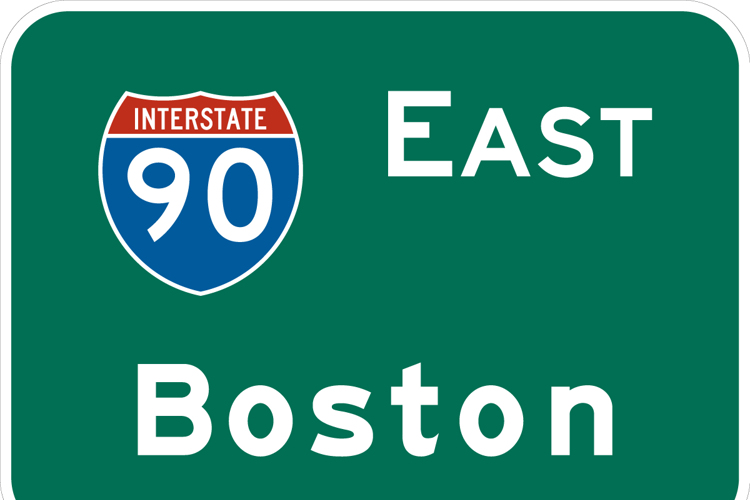
Highway Gothic E Modified FHWA Font
These are the current Highway Gothic letterforms (updated in February 2025) used by the Federal Highway Administration (FHWA) to design the signs shown in the Manual of Uniform Traffic Control Devices (MUTCD) and the Standard Highway Signs (SHS) manuals. The spaced individual fonts are provided because the method of spacing for sign design by the FHWA does not conform to the manner of spacing used in graphic design programs. The spacing is done on a strict percentage of character width basis. These fonts contain no kerning pairs, and that is intentional. The fonts were updated in February 2025 with updated letterforms, fractions, and a consistent X height throughout the different weights.